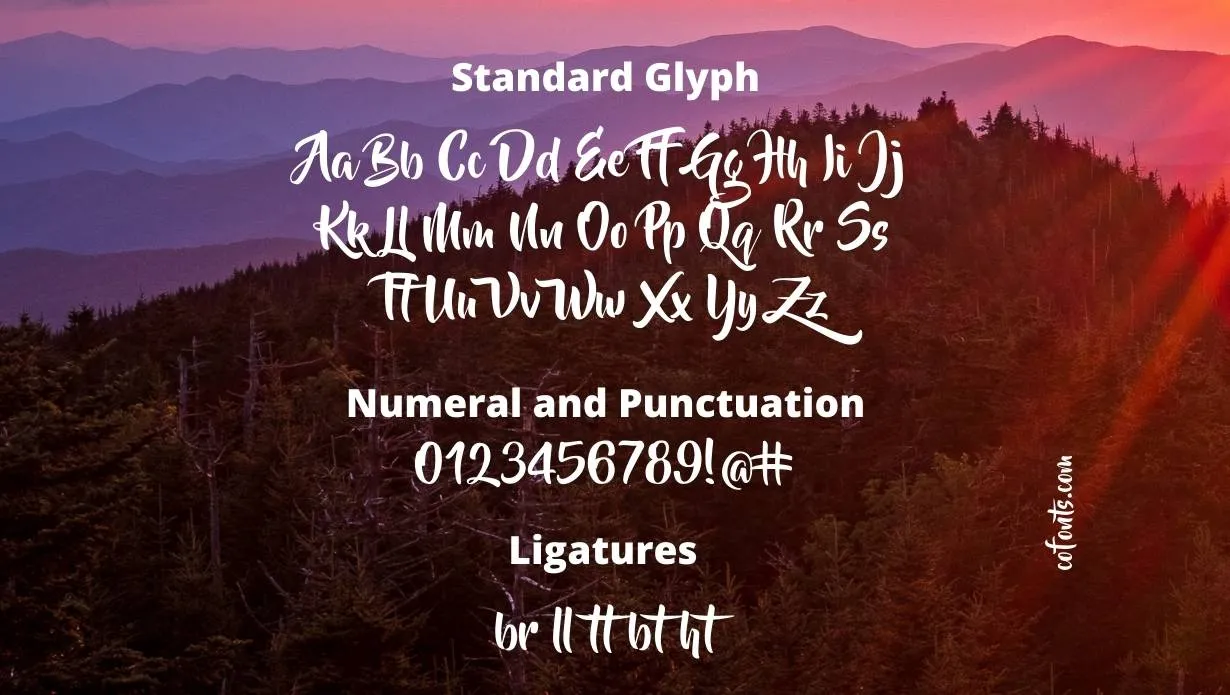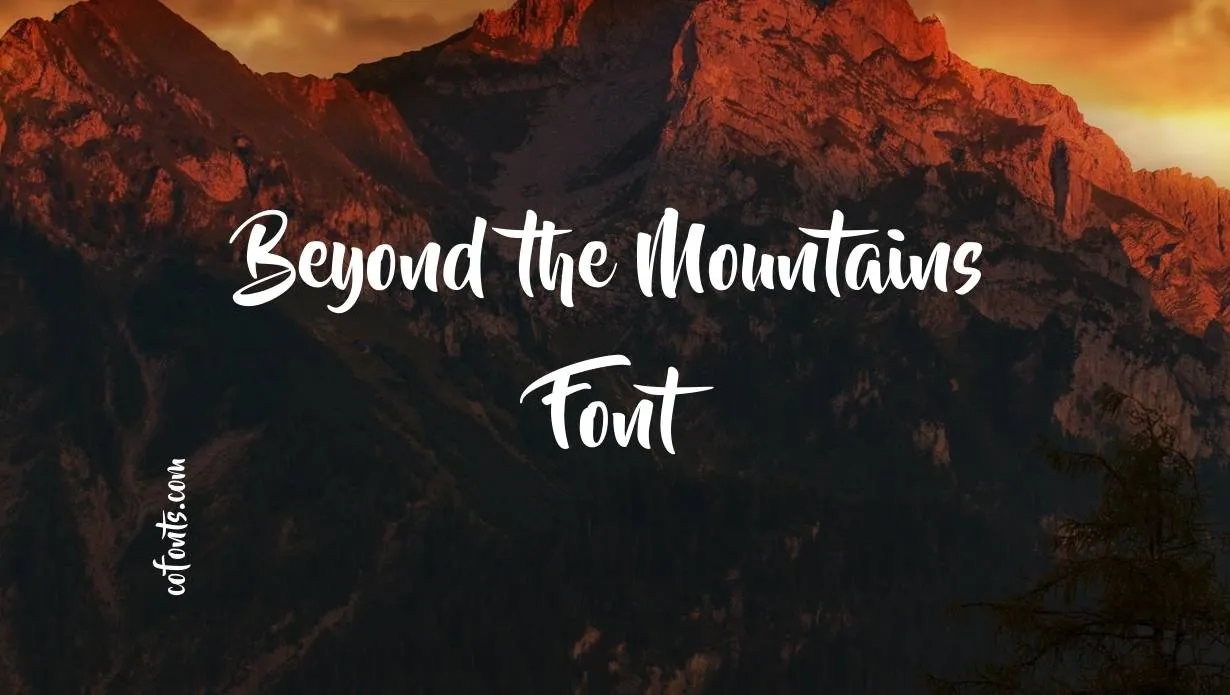
Beyond the Mountains Font Free download is a modern typeface available in multiple variants and styles.
- Beyond the Mountains Font Regular
- Beyond the Mountains Font Bold
- Beyond the Mountains Font Italic